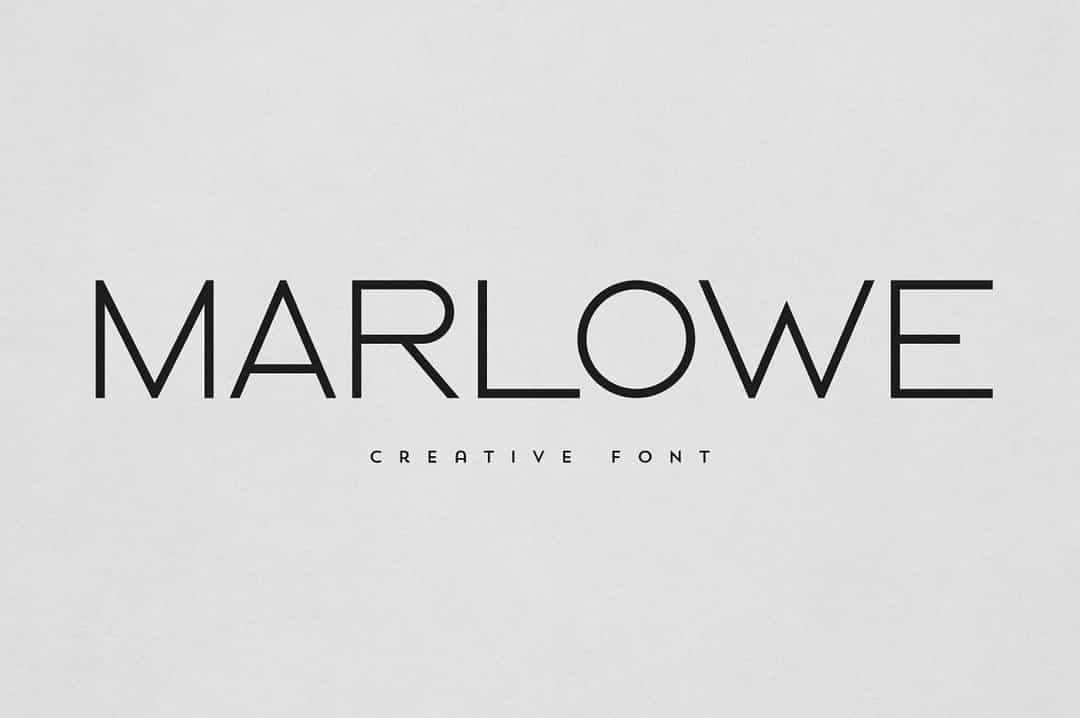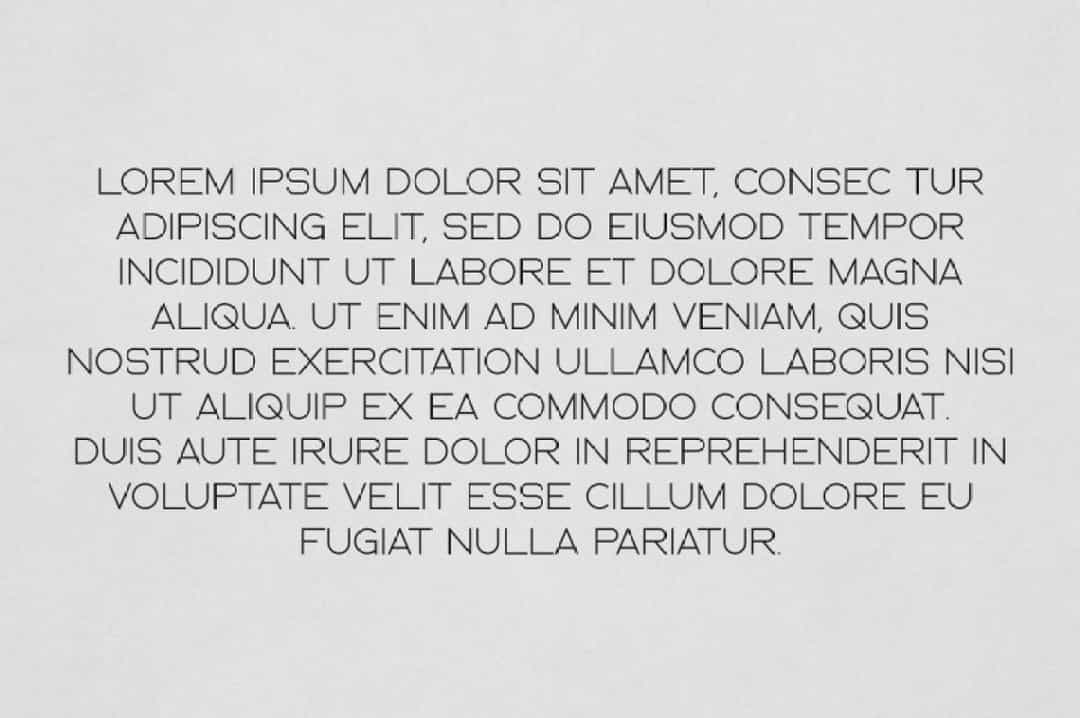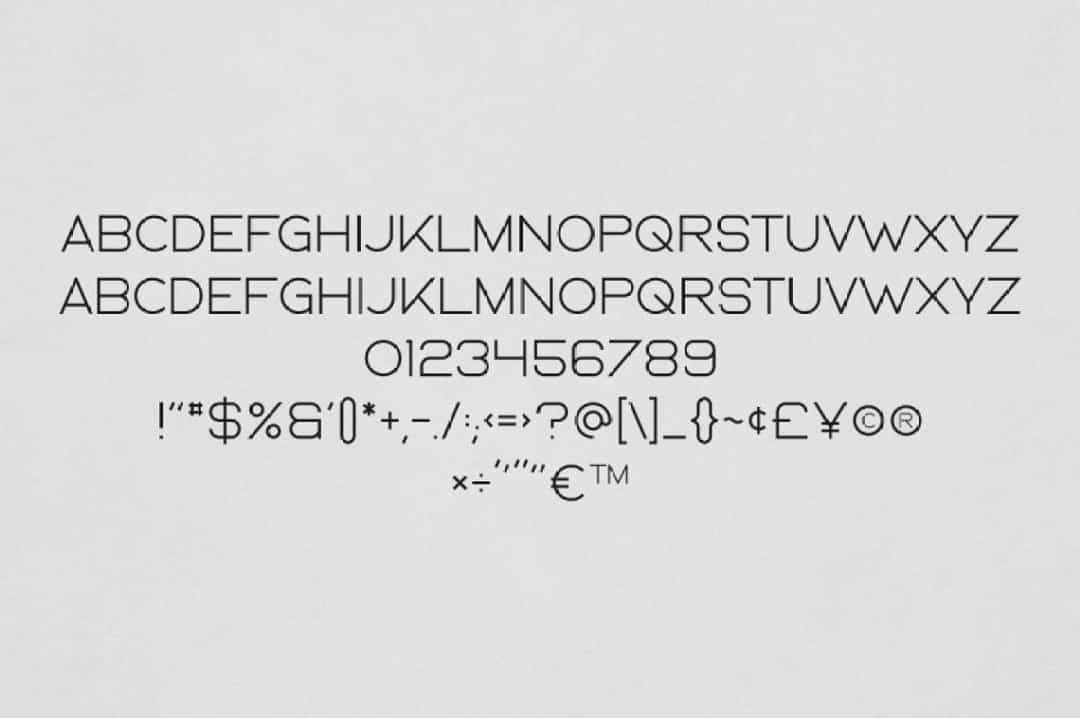
Marlowe can be described as an elegant and versatile sans serif font which will bring your typography alive! It will impress readers of any headline, logo, branding or simple text! Perfect for home-ware projects, branding designs, packaging of products and magazine headers as well as simply text overlying photos for background pictures!